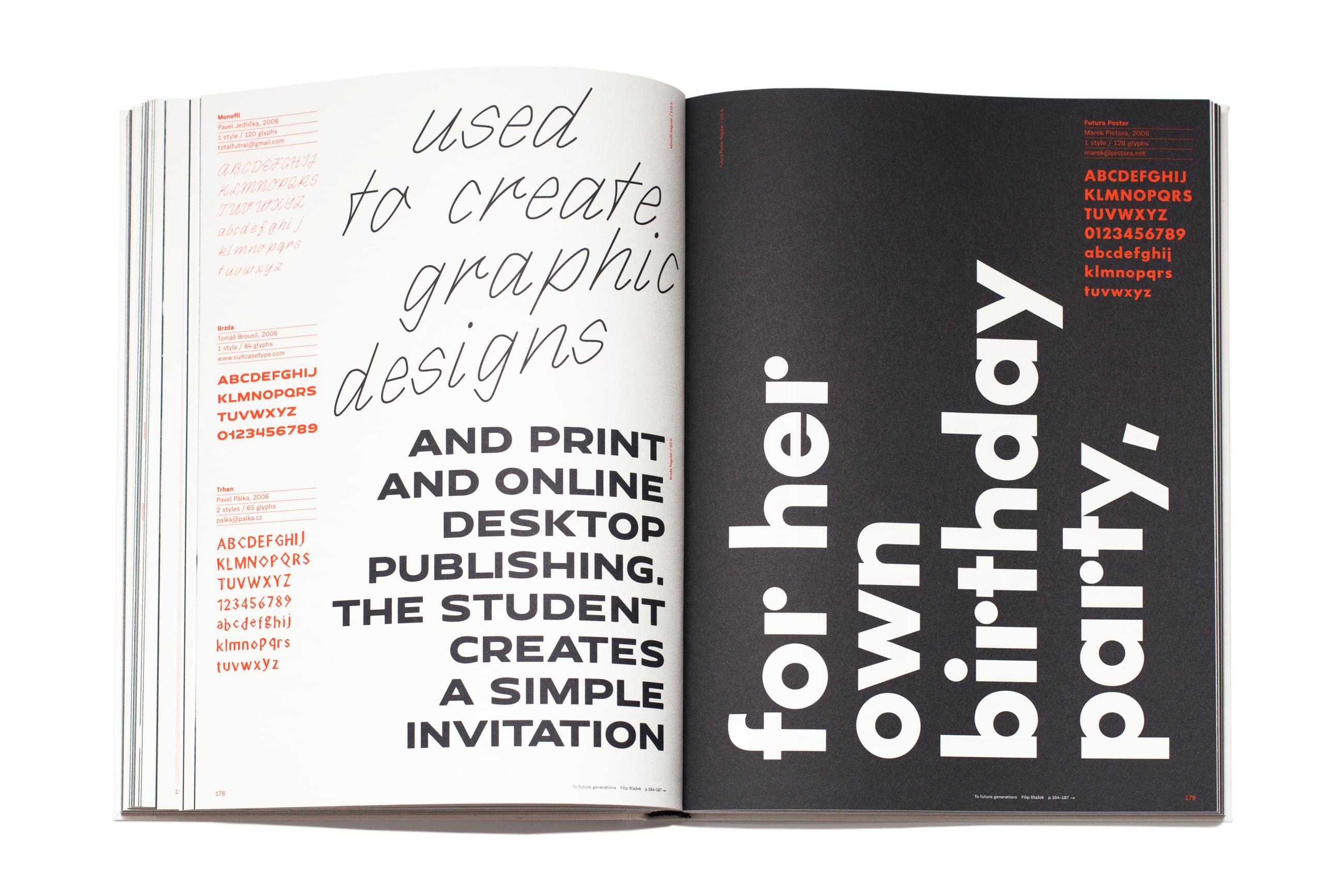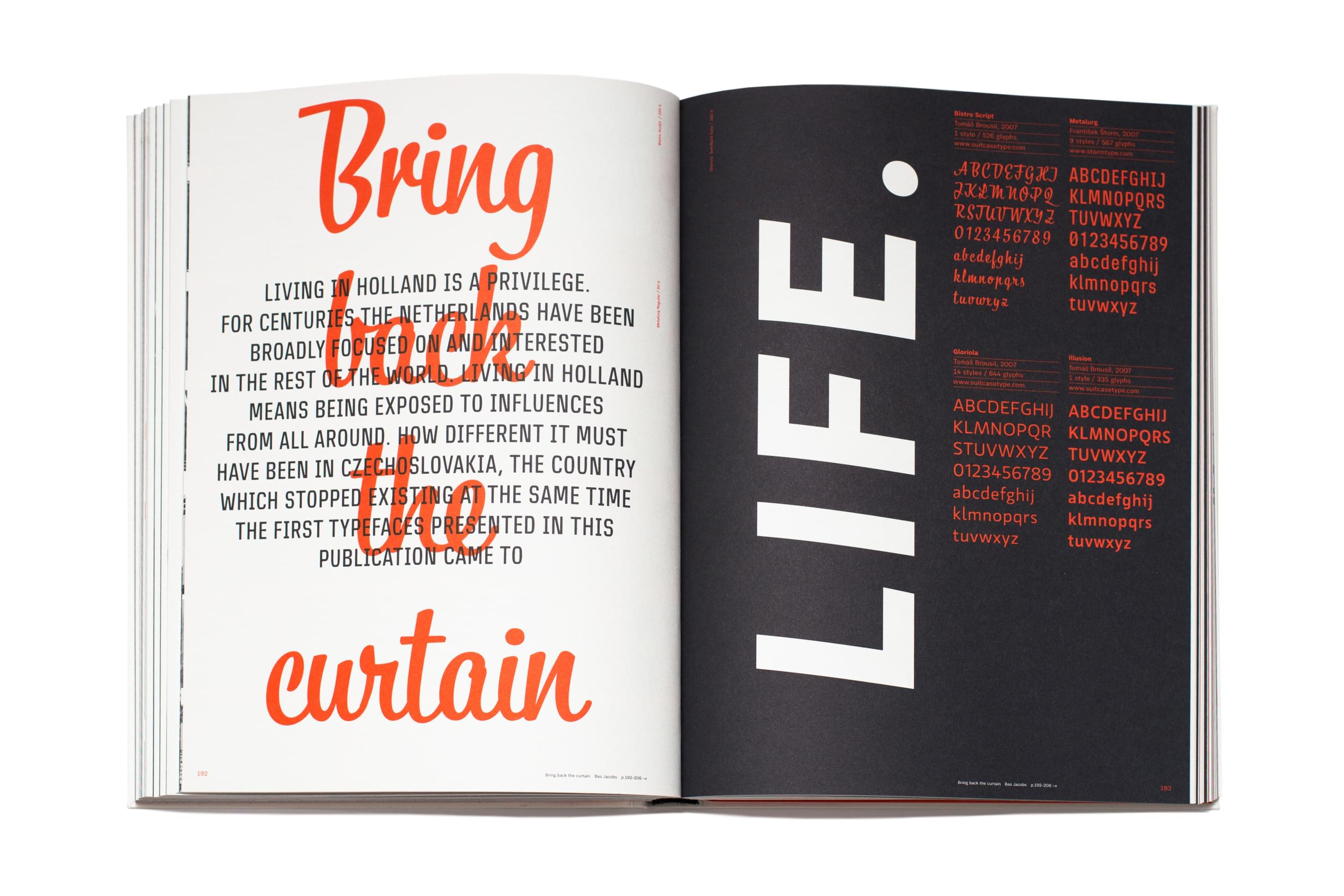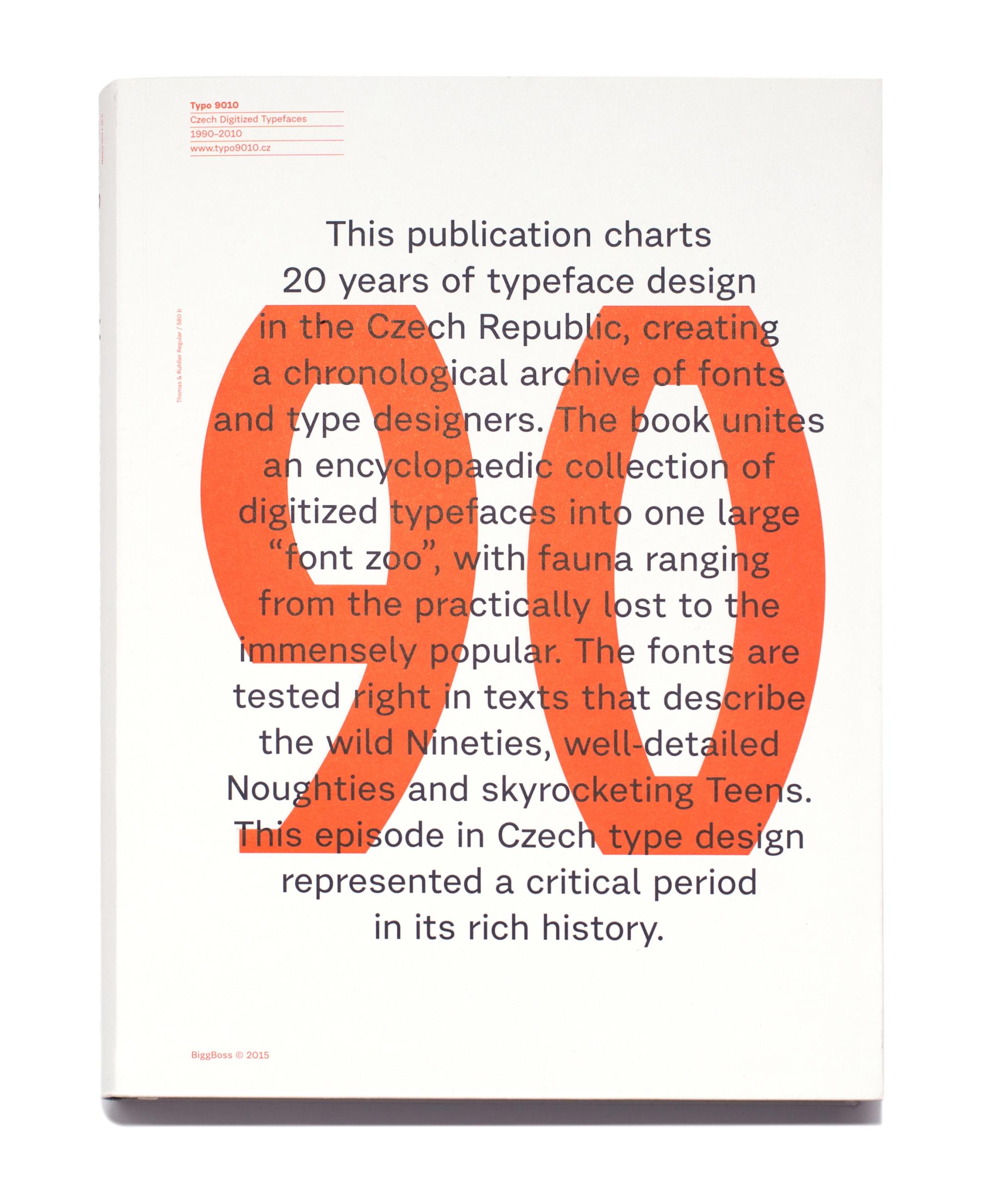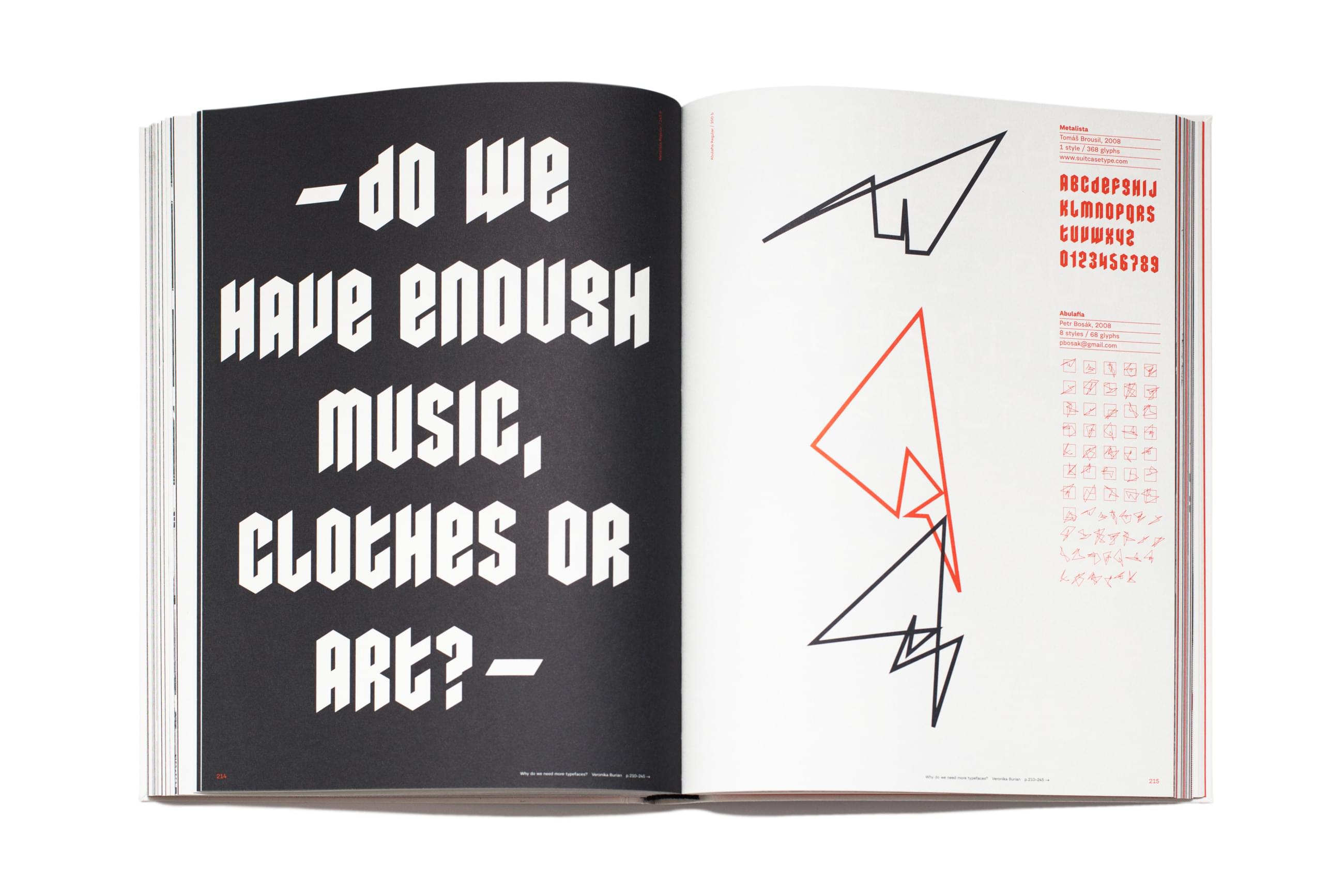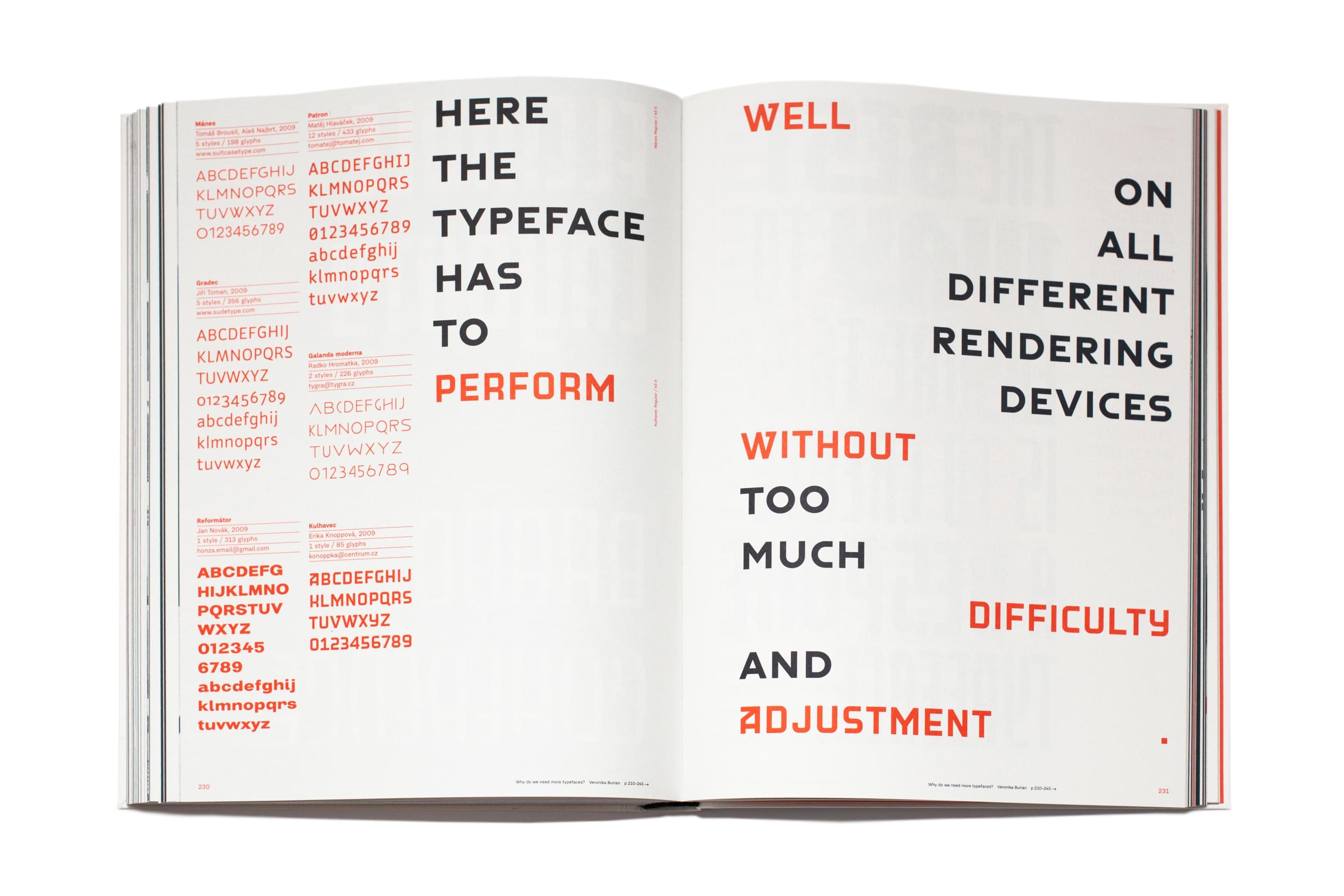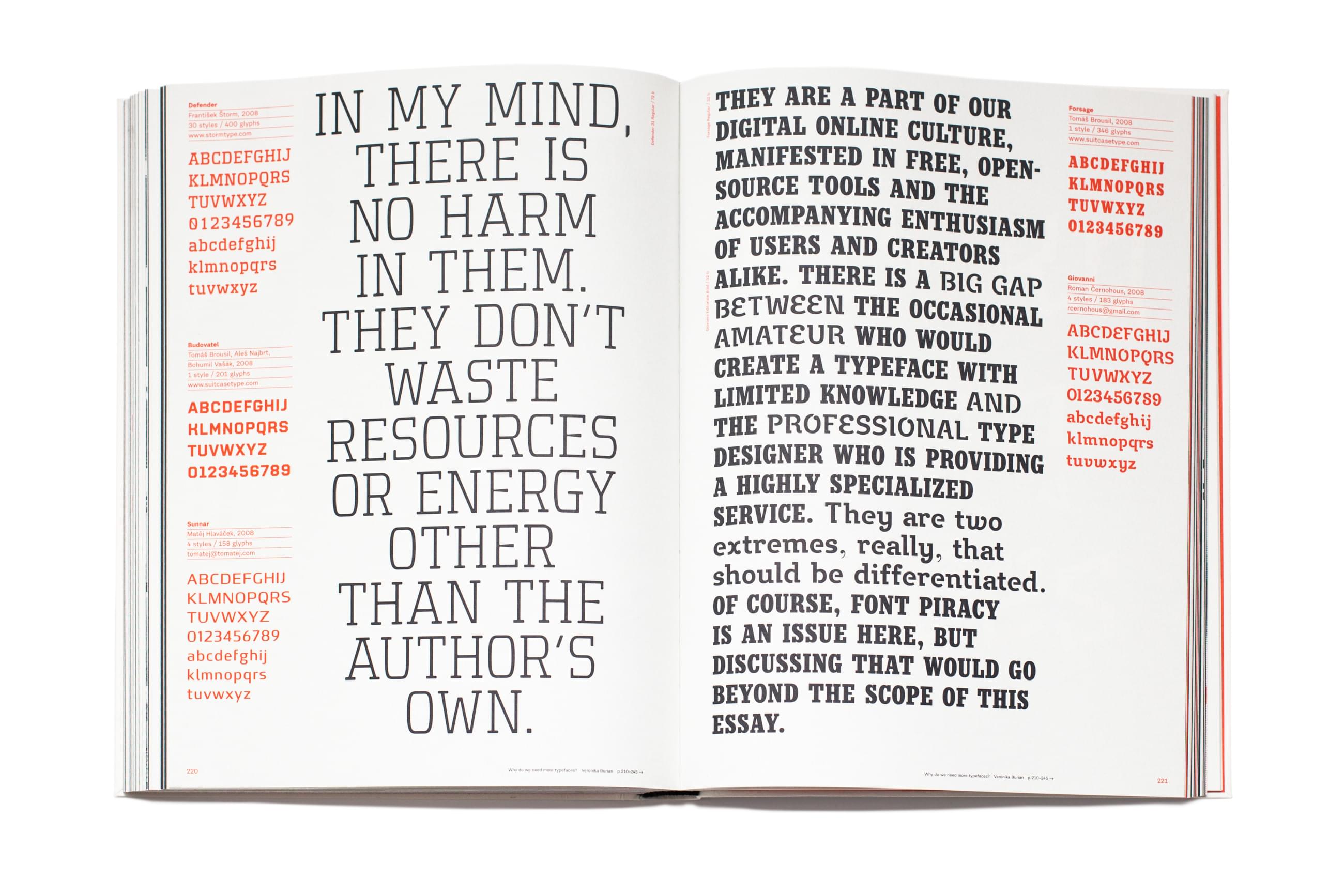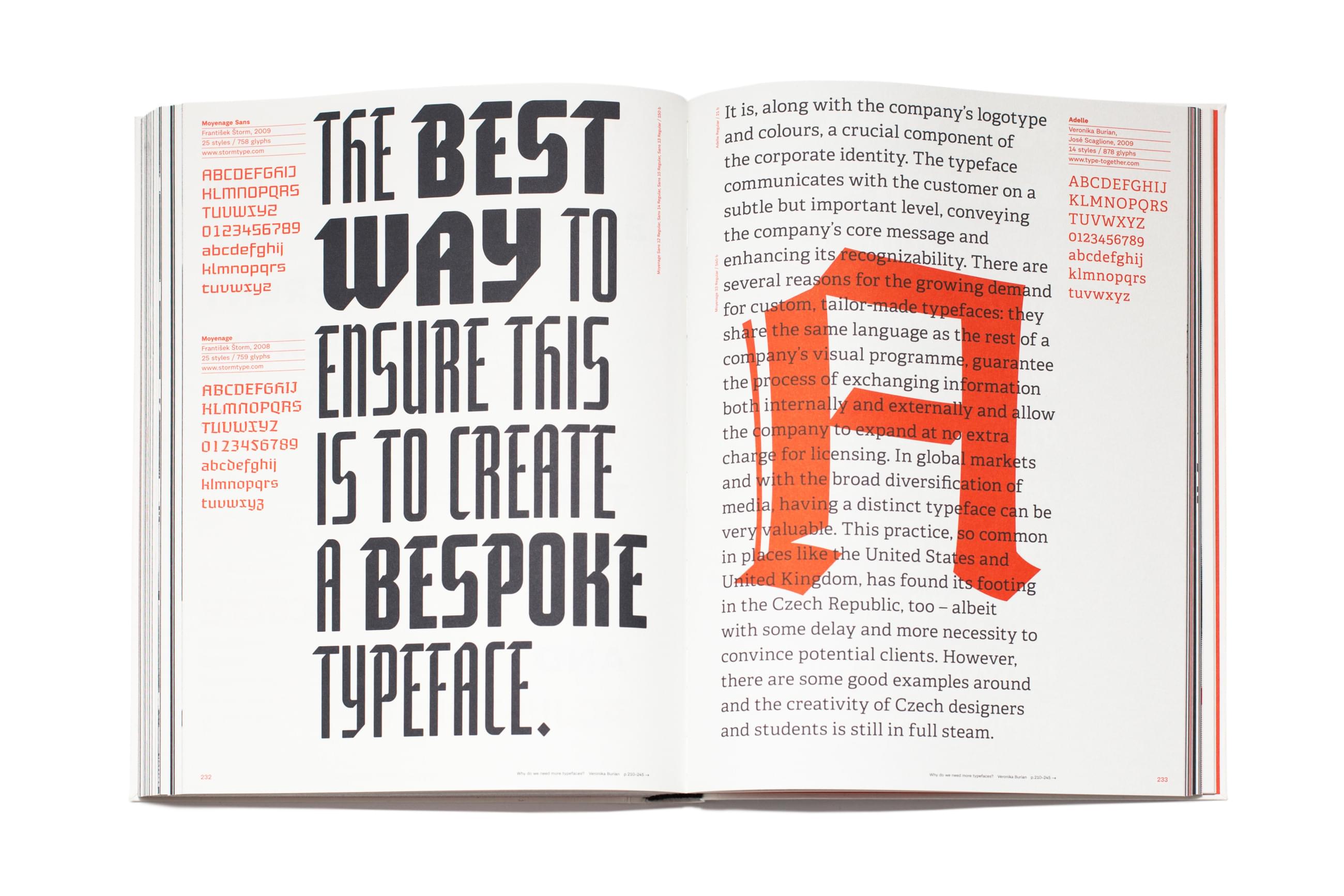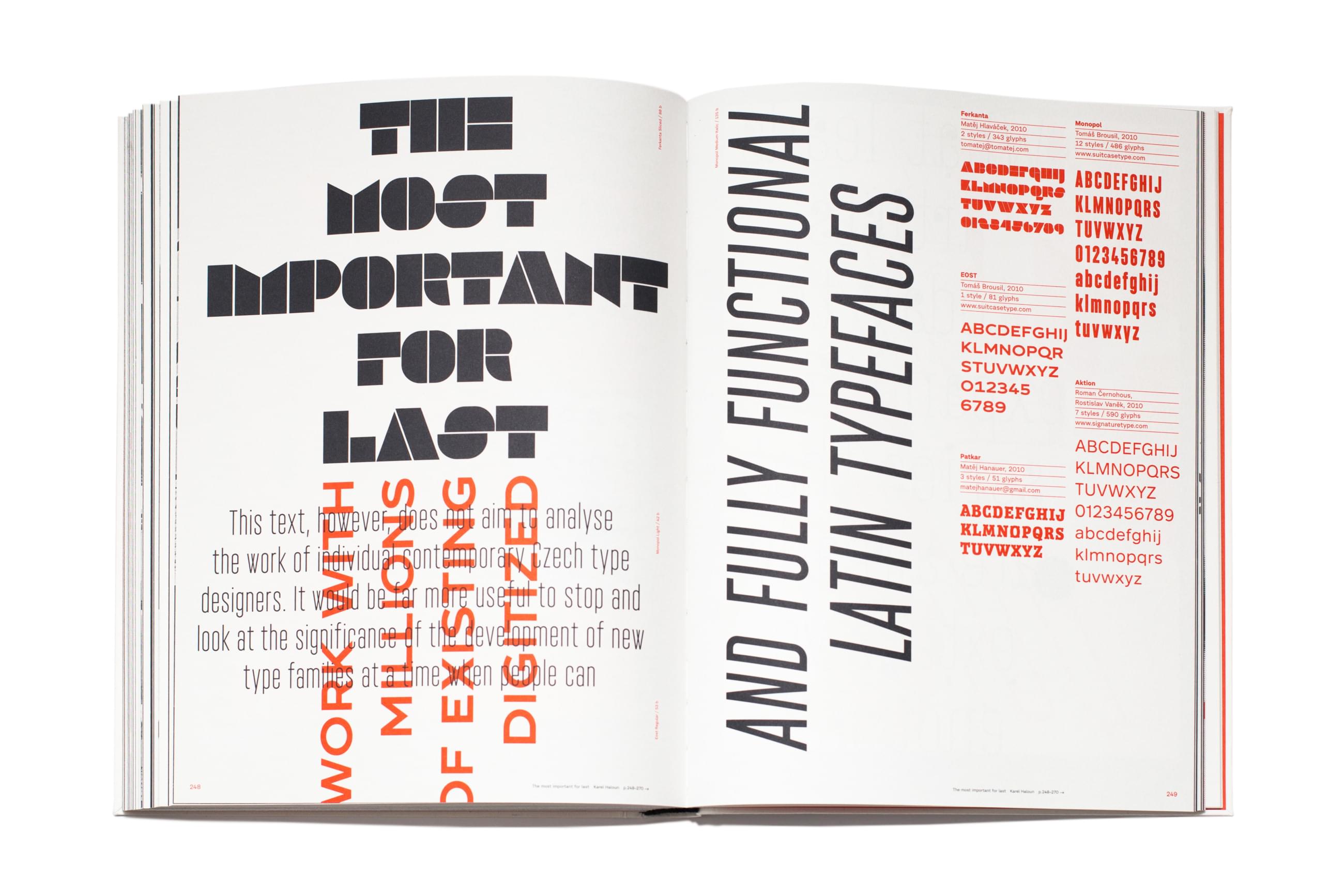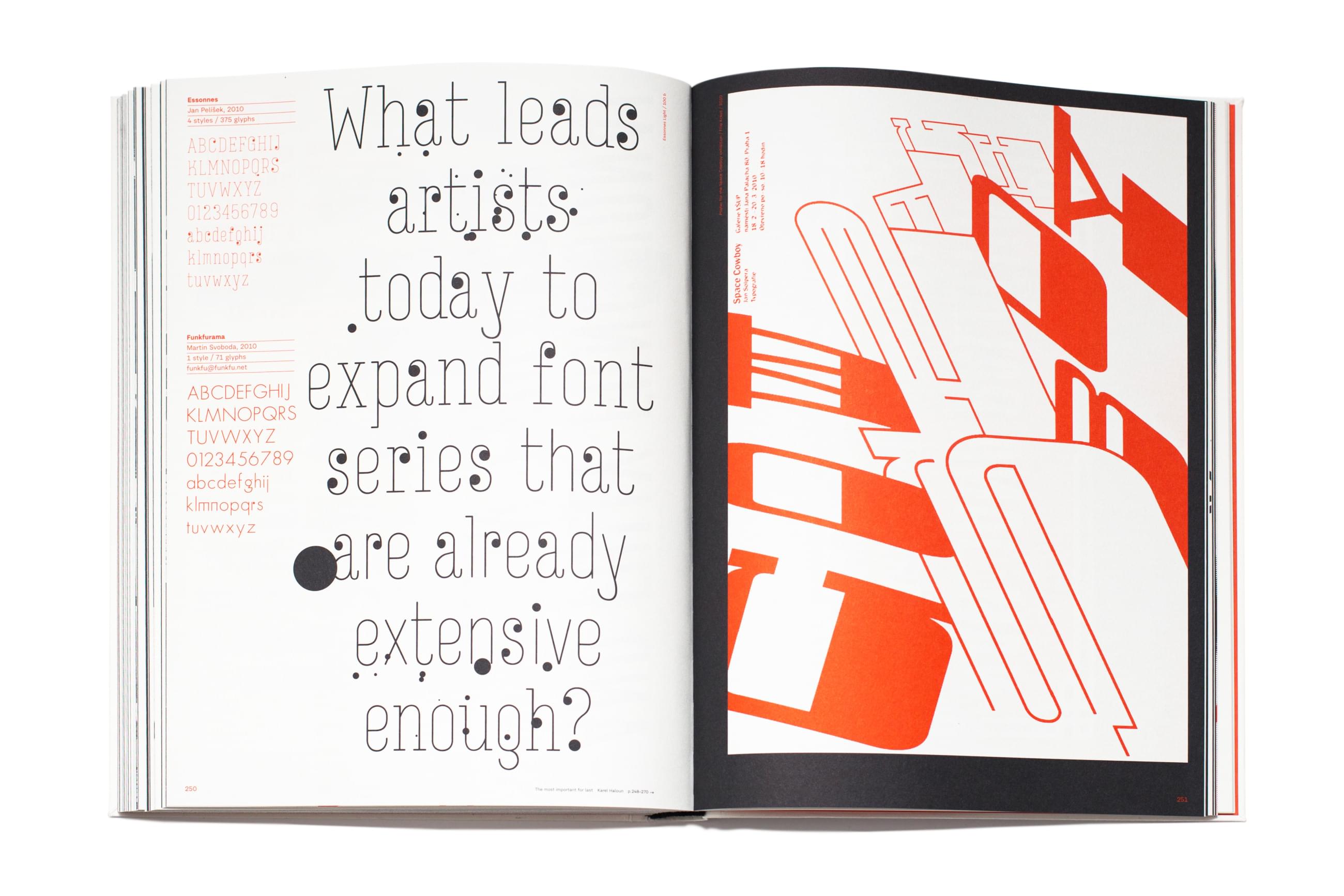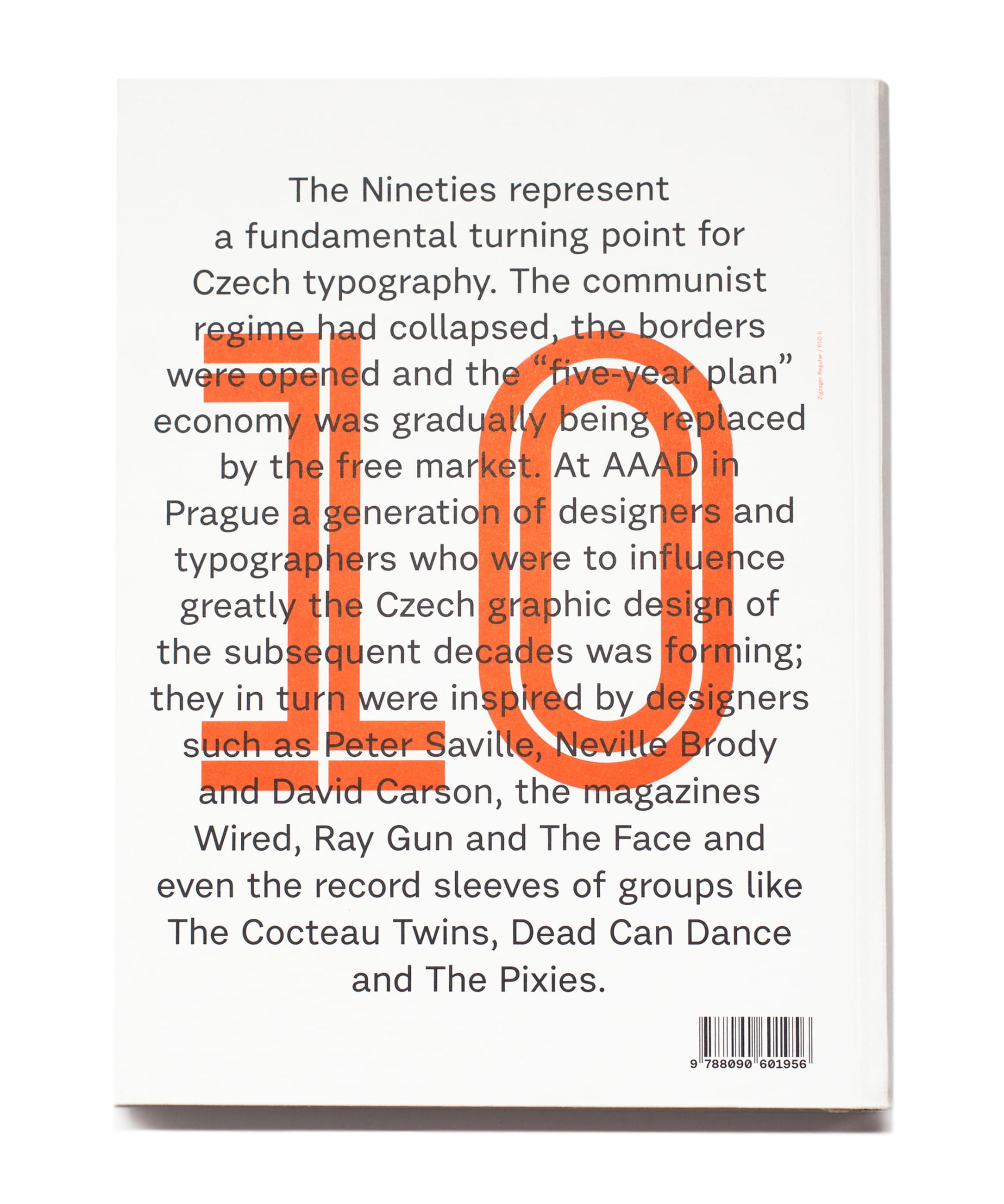
Typo 9010 — Czech digitized typefaces 1990—2010
8 texts, 103 designers, 399 fonts, 288 pages, 1902 styles, 9010. Typo 9010 summarizes the history of the Czech digitized fonts between 1990 and 2010, and also acts as a specimen. Unlike traditional specimens, it can be read continuously from beginning to end. Zuzana Lednická used the texts of Petr Babák, Filip Blažek, Veronika Burian, Karel Haloun, Ondřej Chorý, Bas Jacobs, Pavel Noga, Jan Solpera and František Štorm to show alphabets in an actual typesetting. Even though some fonts tried to fight it and the setting is far from your standard setting, the fonts show what’s in them better than on a quick fox jumping over a regular specimen and simultaneously reading the texts is more fun than in a sober design of any academic publication. What’s more, chronological order naturally brings together fonts that would otherwise hardly meet. Combinations of Regent by František Štorm or Mongoloid by Ondřej Chorý with Cubist edges of Reflex by Aleš Najbrt work to your surprise. The whole thing ends with one really big, beautiful period from LSNY by Petr Bosák.
Designer: Zuzana Lednická
Additional cooperation: Radek Sidun (typeface), Tomáš Brousil (typeface), Petra Dočekalová (typeface)